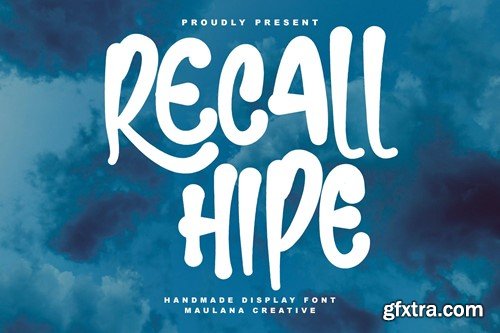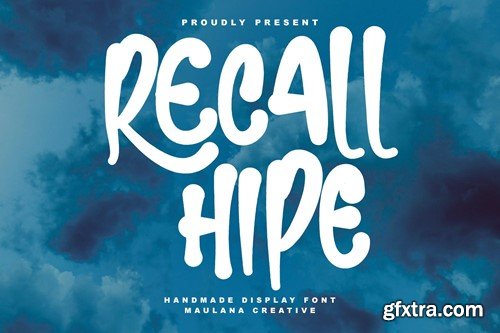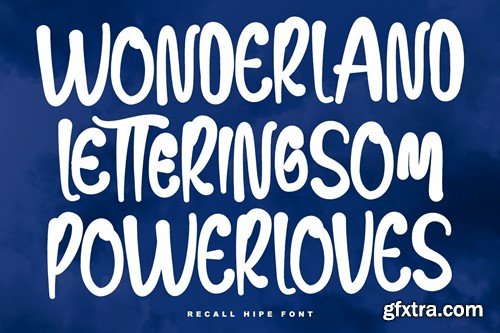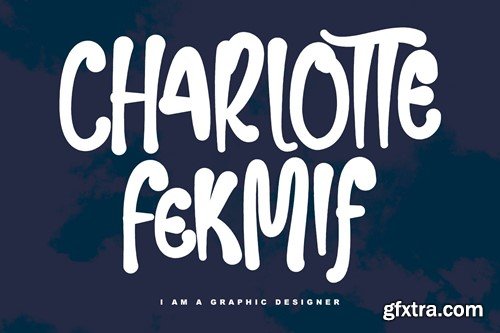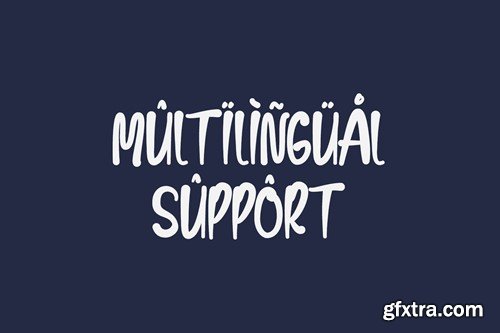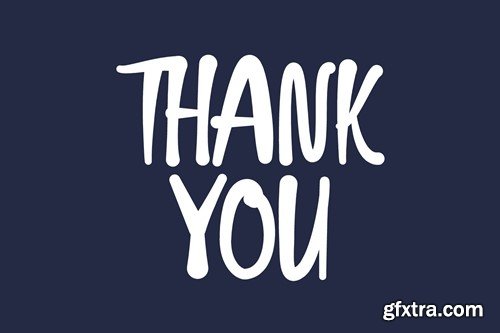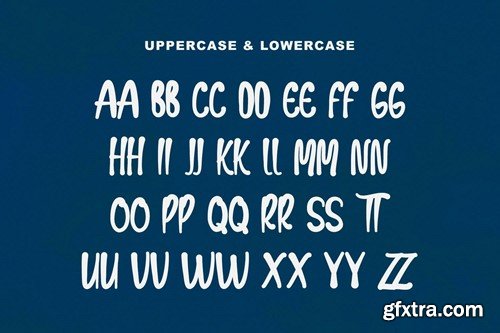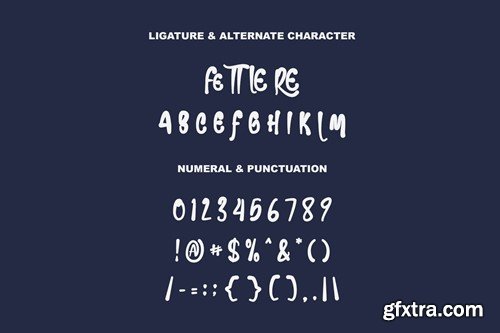
Recall Hipe Handmade Display Font
Recall Hipe handmade display font. Bold stroke, fun character with a bit of ligatures and alternates. To give you an extra creative work. Recall Hipe handmade display font support multilingual more than 100+ language. This font is good for logo design, Social media, Movie Titles, Books Titles, a short text even a long text letter and good for your secondary text font with script or serif. Make a stunning work with Recall Hipe handmade display font. Include: Cheers, Maulana Creative